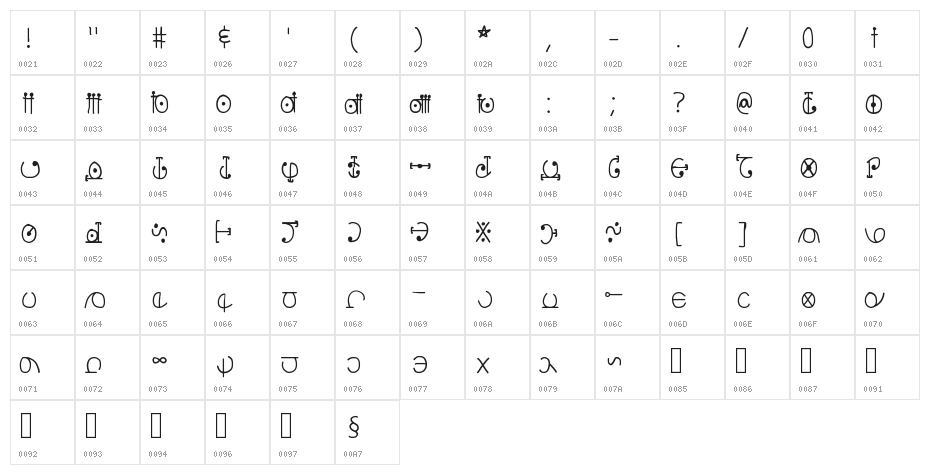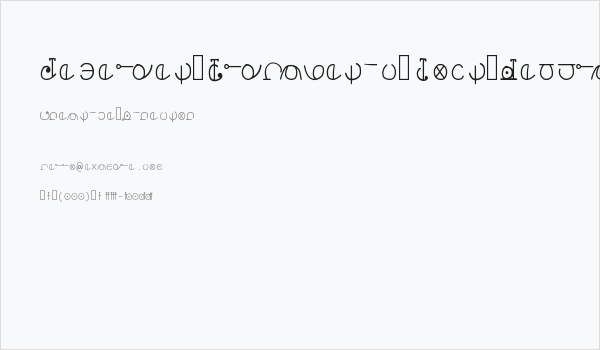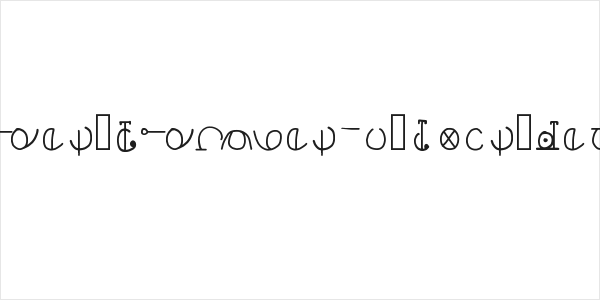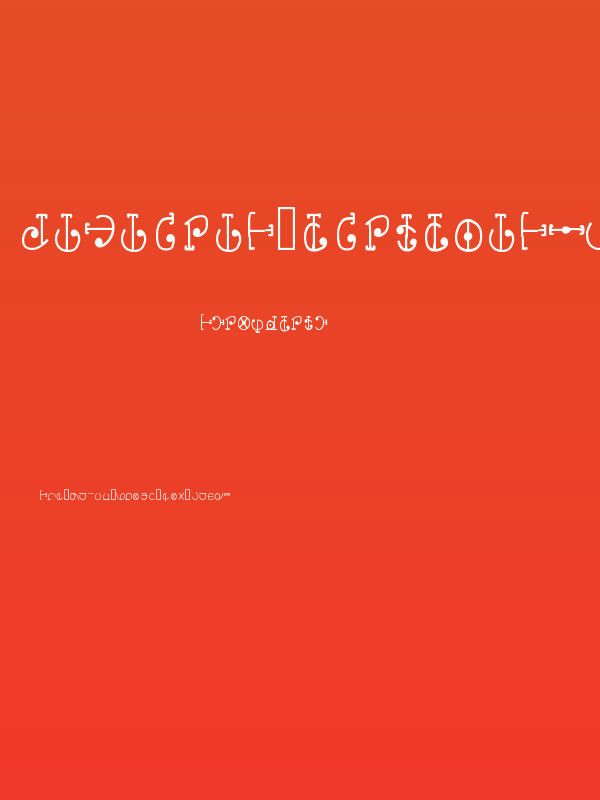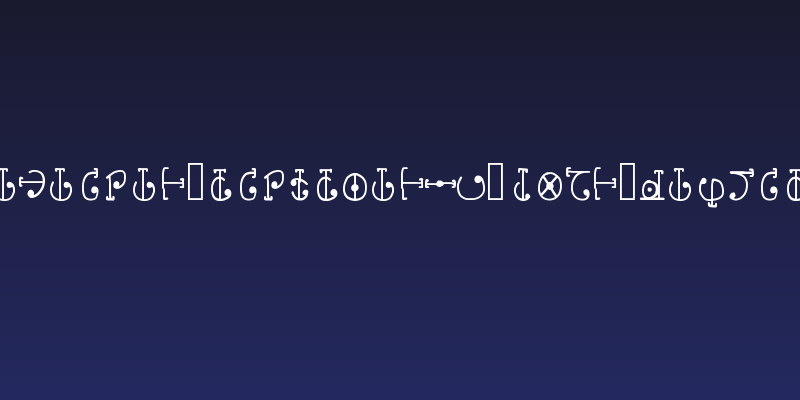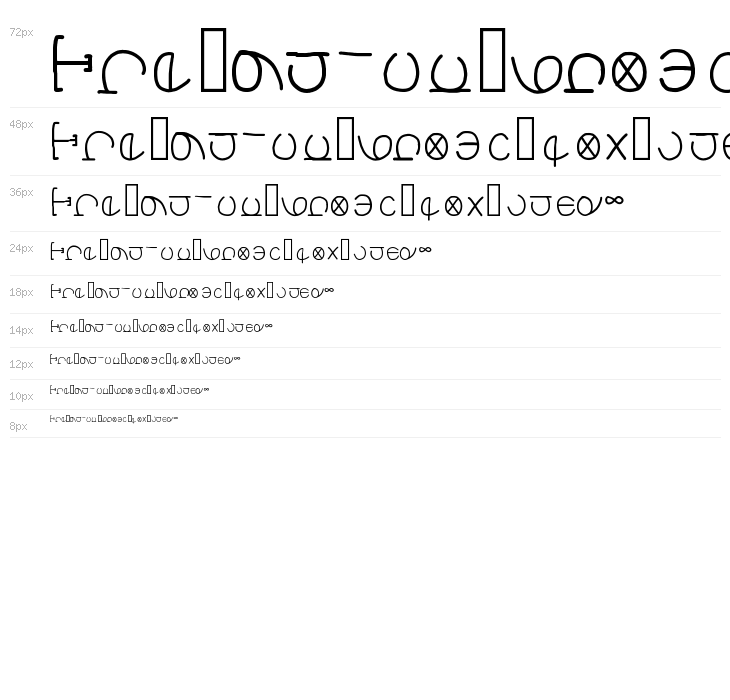
Jewelpet Alphabetic Font Regular Font
Jewelpet Alphabetic Font Regular Description
This font features a whimsical and decorative style, characterized by its unique and playful glyphs that incorporate circular and geometric elements. Each character is designed with a sense of fun and creativity, making it stand out with its intricate details and ornamental flair. The font combines elements of both modern and fantasy aesthetics, creating a distinctive look that is both eye-catching and imaginative. The characters are well-spaced, ensuring readability while maintaining their artistic appeal. This font is perfect for projects that require a touch of magic and creativity, such as children's books, fantasy-themed designs, or playful branding.